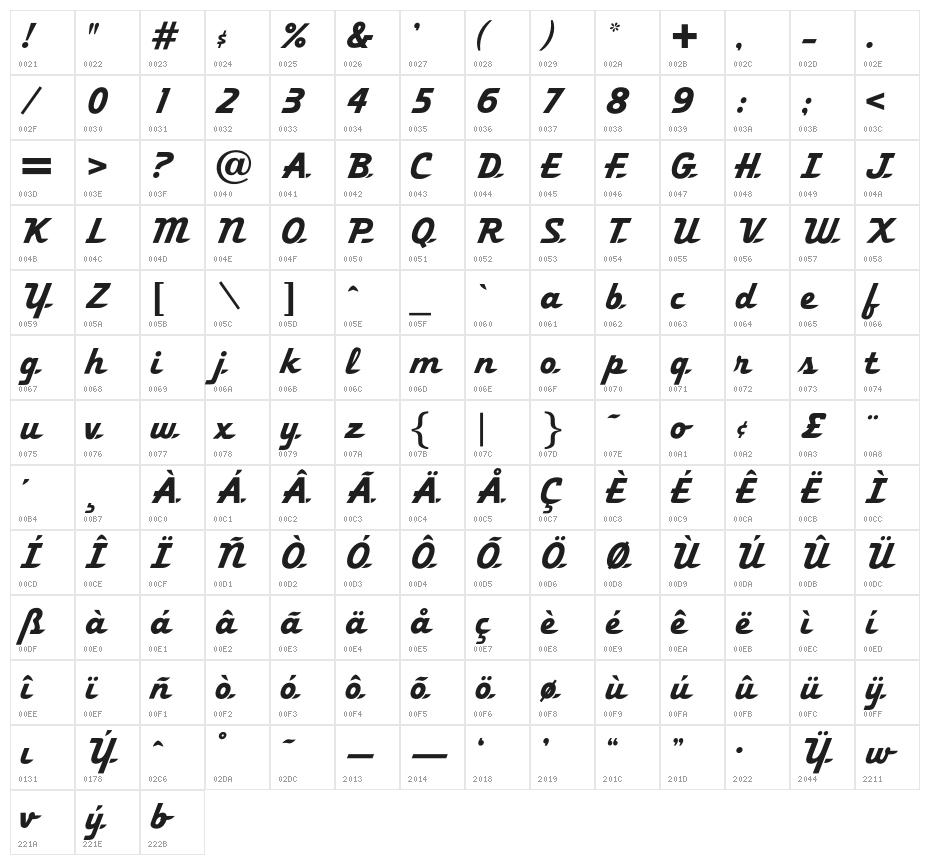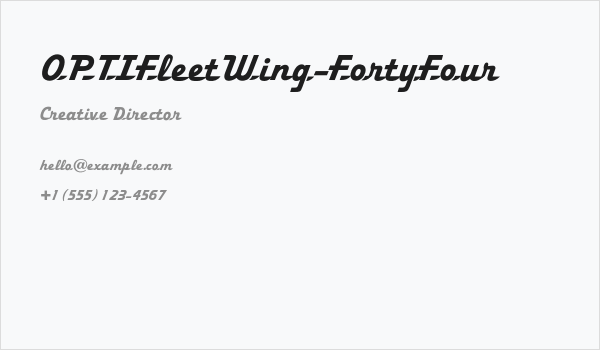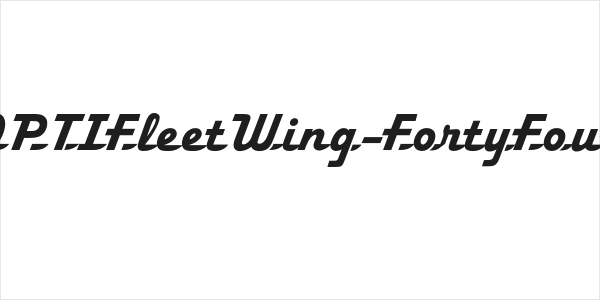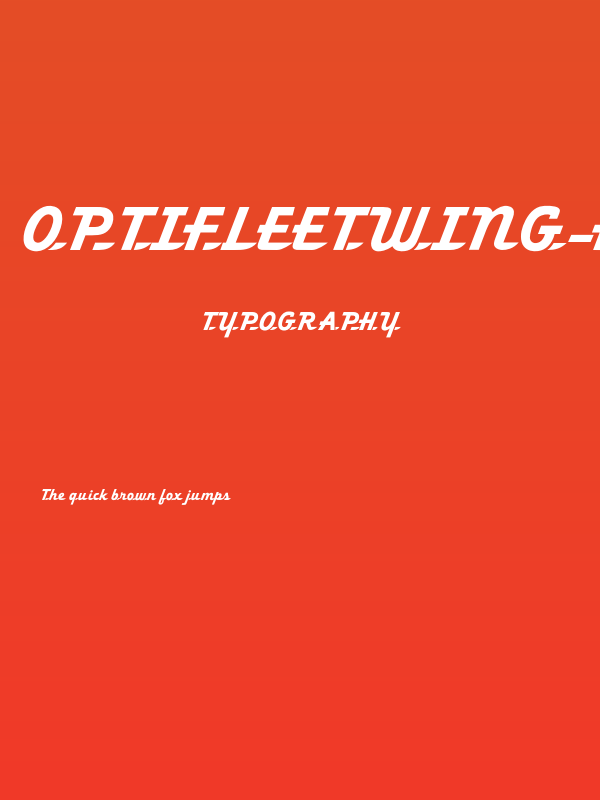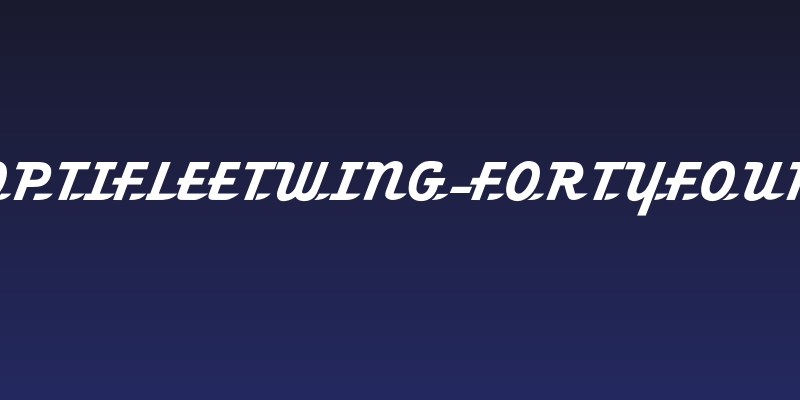
OPTIFleetWing-FortyFour Font
OPTIFleetWing-FortyFour Description
This font features a bold and dynamic script style with a strong italic slant, giving it a sense of motion and energy. The characters are well-defined with a consistent stroke width, providing a clean and modern appearance. The uppercase letters are slightly more angular, while the lowercase letters maintain a smooth, flowing form. The numerals and special characters are designed to complement the overall aesthetic, making it suitable for a variety of design applications. The font's boldness and slant make it particularly eye-catching, ideal for creating impactful headlines or logos.
| Proposed Projects | Ideal for branding, advertising, headlines, and logo design. |